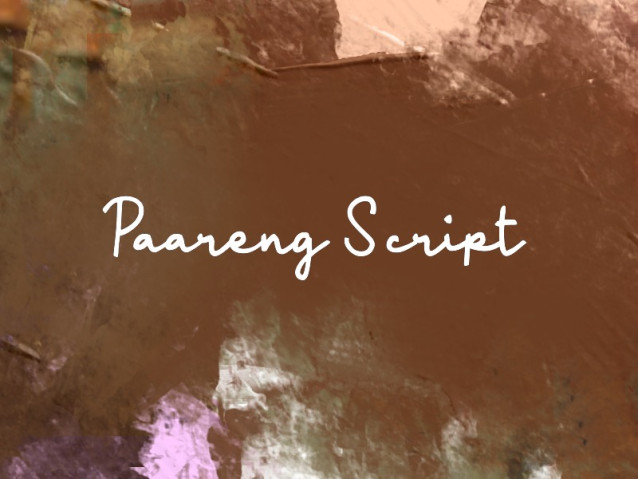
Paareng Script Font
Paareng Script Font is a simple and friendly handwritten font. Its natural and unique style makes it incredibly fitting to a large pool of designs. The only limit is your imagination!